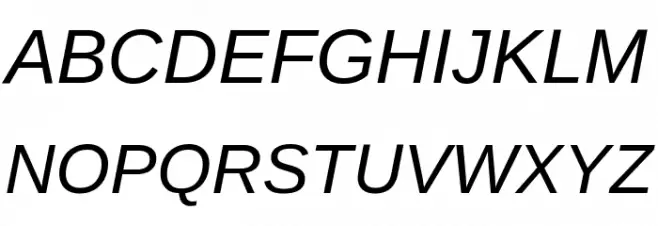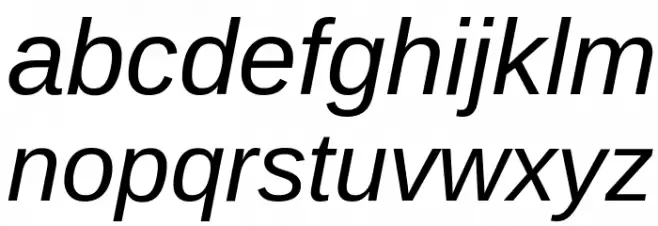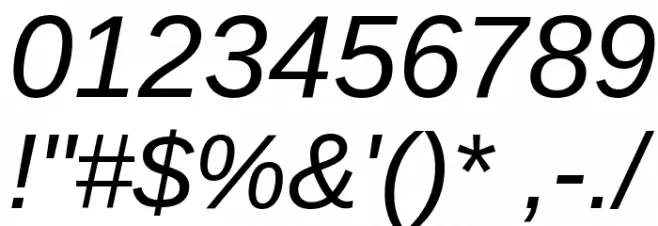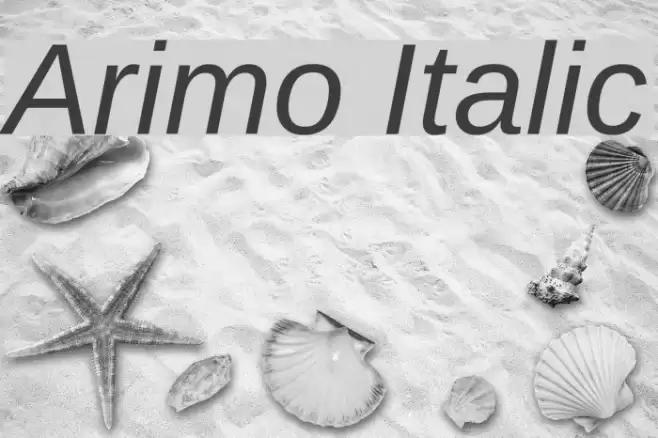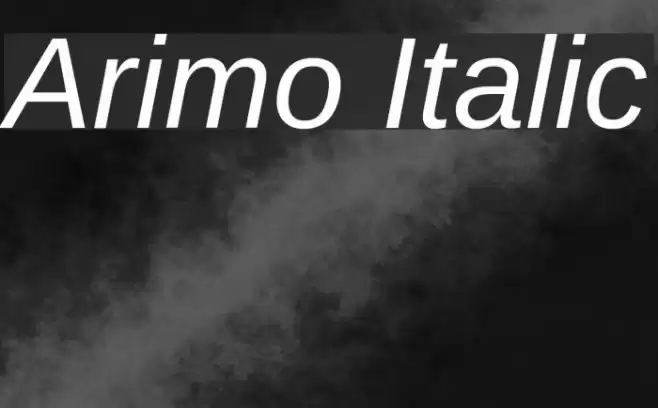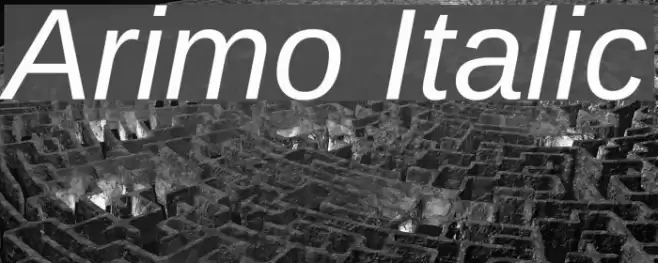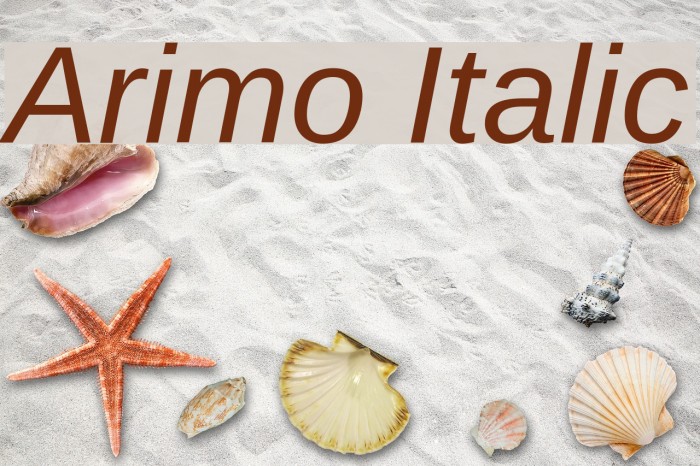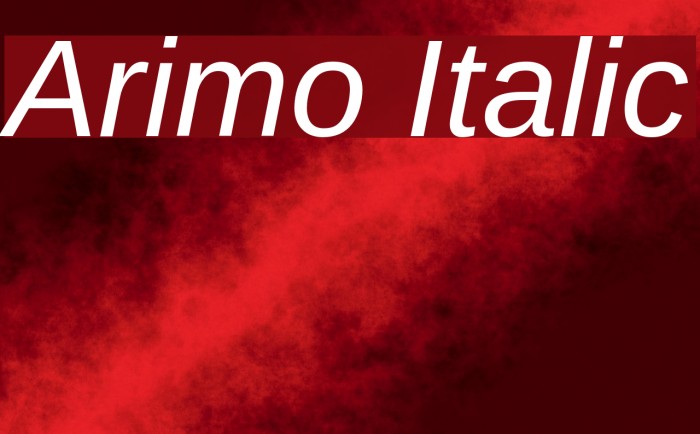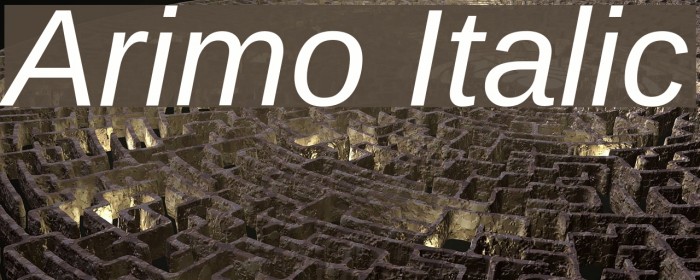
Arimo Italic
This font presents a clean and modern sans-serif style with a slight italic slant, giving it a dynamic and forward-moving appearance. The characters are well-proportioned with a consistent stroke width, making it highly legible across various sizes. The uppercase letters exhibit a straightforward design, while the lowercase letters maintain a harmonious flow. Numerals are clear and distinct, ensuring readability in numerical data. Special characters are neatly integrated, maintaining the overall aesthetic. The font's simplicity and elegance make it versatile for numerous applications.
A modern, italic sans-serif font with clean lines and excellent legibility.
- Proposed Projects: Ideal for digital content, presentations, branding materials, and user interfaces where clarity and modernity are key.